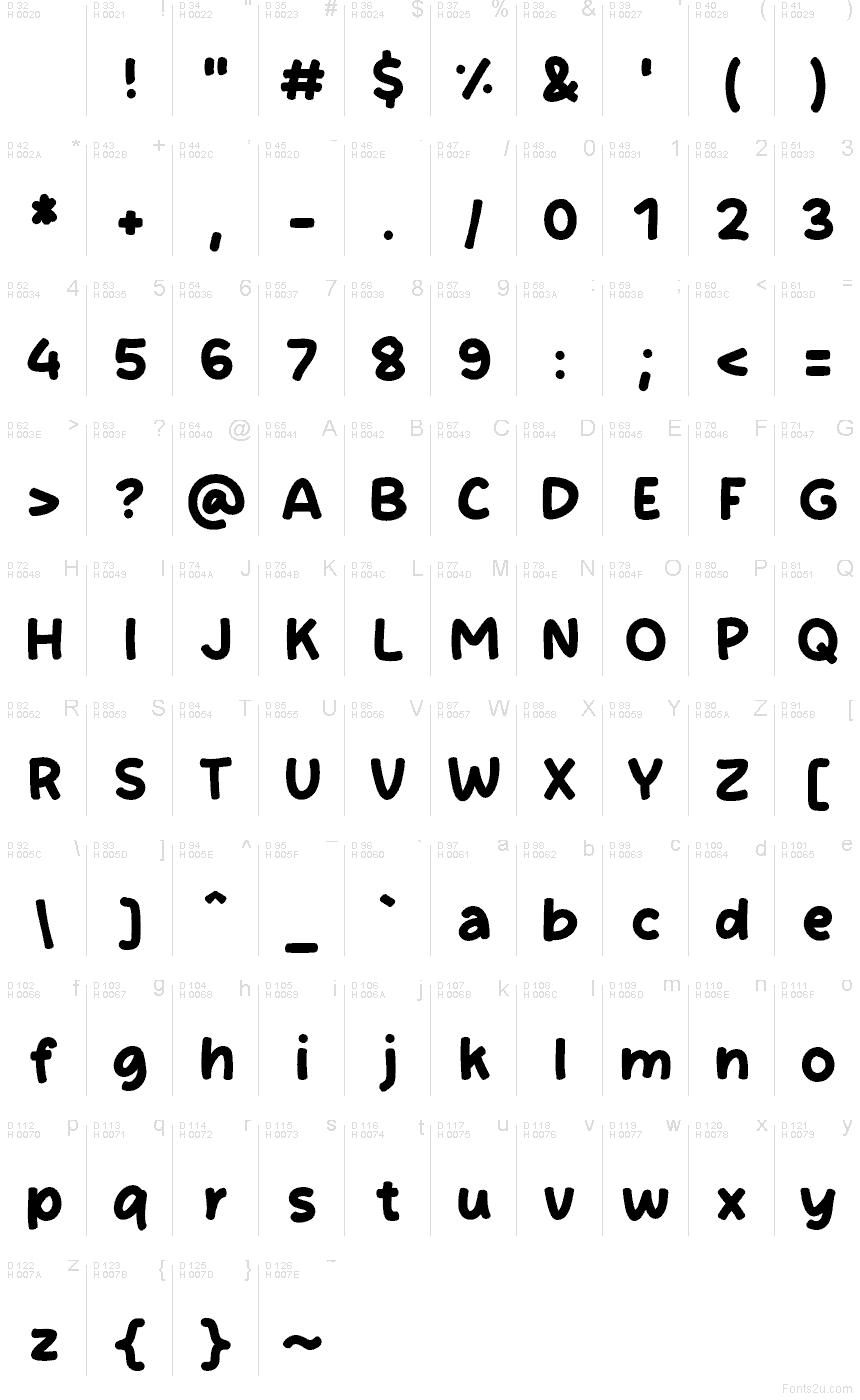
Daily Vibes
Daily Vibes font by Origin Type is a free cartoon display typeface with a bouncy, hand-drawn charm that feels like it was lettered with a thick, inky marker. Its rounded, slightly squishy shapes and smooth curves give every word an upbeat, friendly tone, great for projects that need to feel approachable and fun without getting messy. The letters sit close and cozy, creating bold, chunky word shapes that read easily even at a glance.
Using Daily Vibes, you can bring playful energy to kids’ book covers, classroom posters, snack packaging, YouTube thumbnails, stickers, and casual social media graphics. This free font shines when used large and loud, where its soft edges and bubbly rhythm can really show off. Pair it with a clean, neutral sans serif for body copy to keep layouts readable while Daily Vibes handles the fun, expressive headlines.